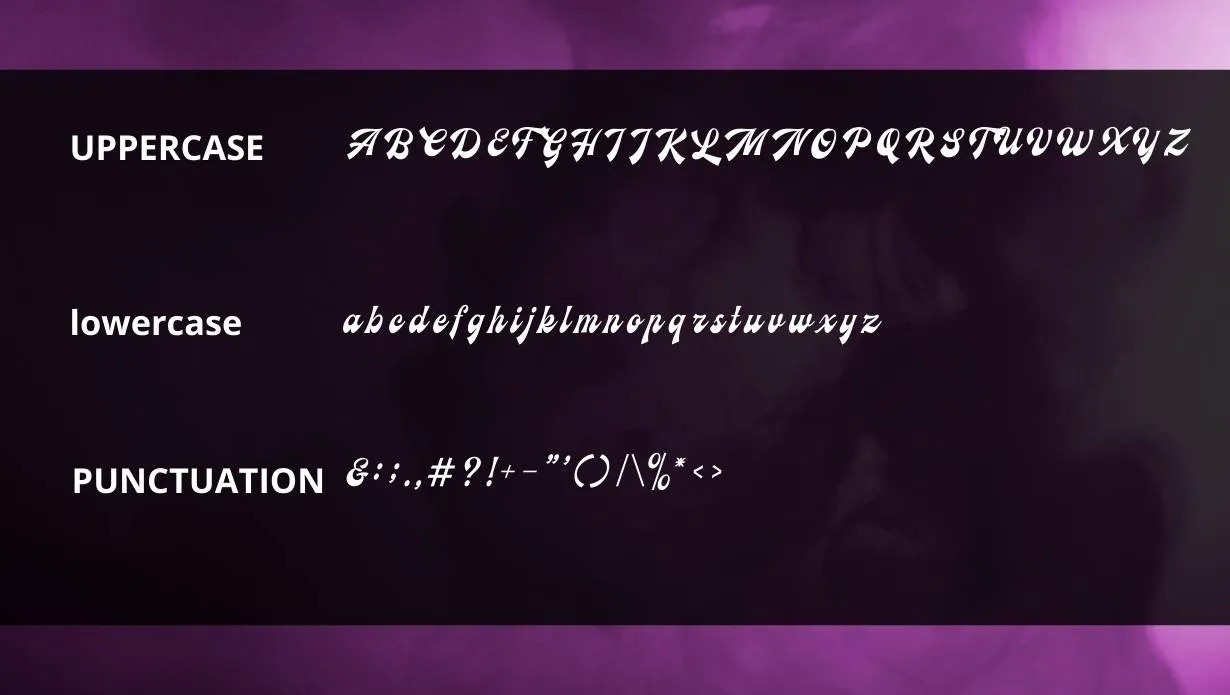
Ecentric Font is a new script typeface created by Type Department, an independent type foundry based in The Netherlands. The typeface is available in three weights—light, regular and bold—and each weight includes 12 styles, from extra light to black.
View of Ecentric Font
Ecentric Font Info
| Name | Ecentric Font |
| Designer | Type Department |